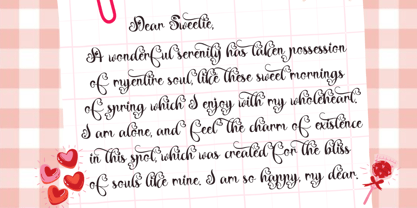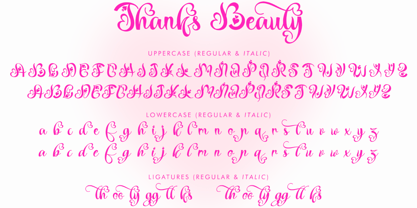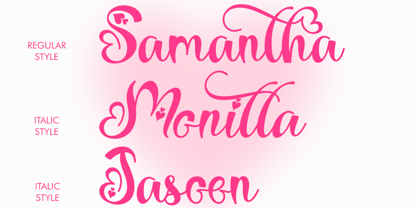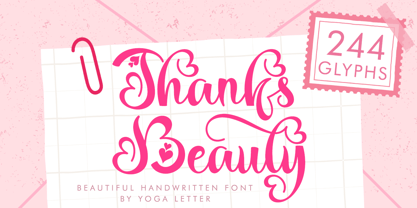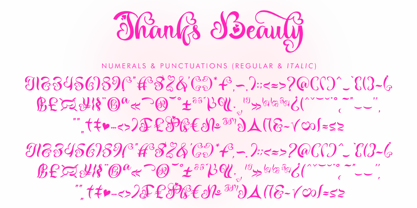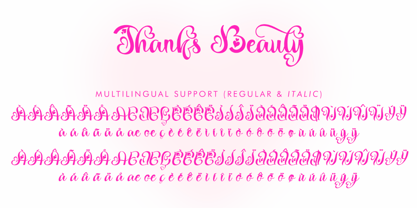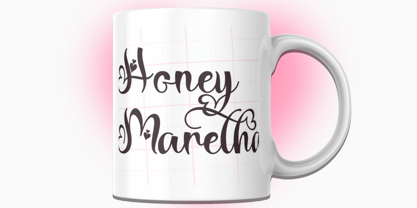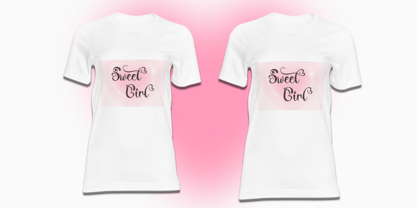
Thanks Beauty Italic
by Yoga Letter
The Thanks Beauty Italic Font Family was designed by Isroni Yoga Prasetya and published by Yoga Letter. Thanks Beauty Italic contains 2 styles and family package options. More about this family
"Thanks Beauty" is a beautiful handwritten font with heart-shaped decorations. It features uppercase and lowercase letters, numerals, ligatures, punctuations, and multilingual support. It's perfect for all wedding projects, invitations, Christmas, Valentine's Day, engagements, winter, fall and autumn, print, banners, posters, spring, summer, holiday and more.
Designers: Isroni Yoga Prasetya
Foundry: Yoga Letter
Thanks Beauty Italic